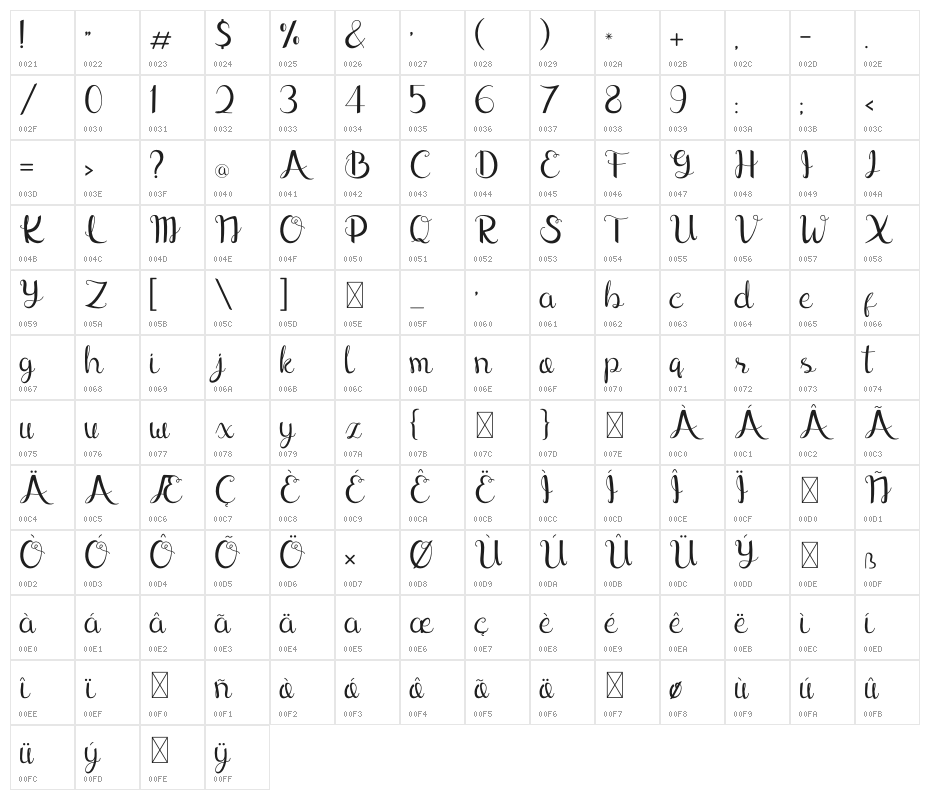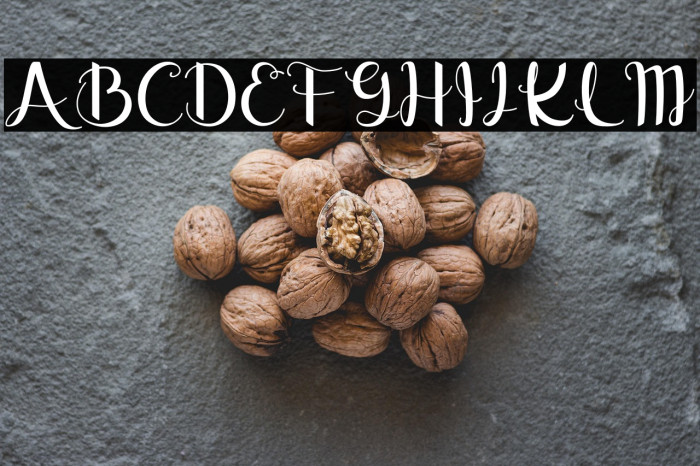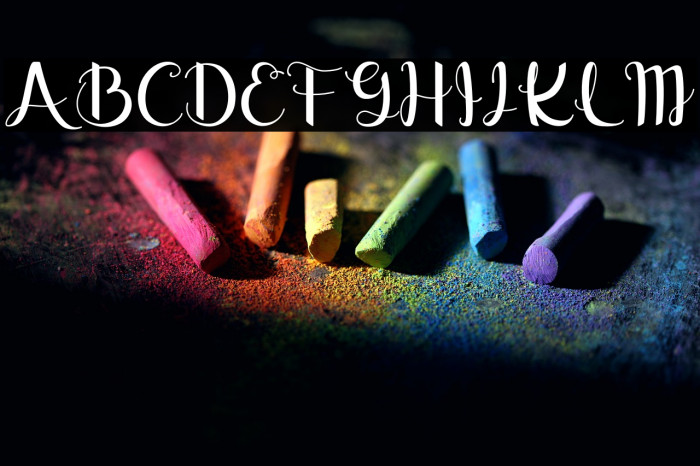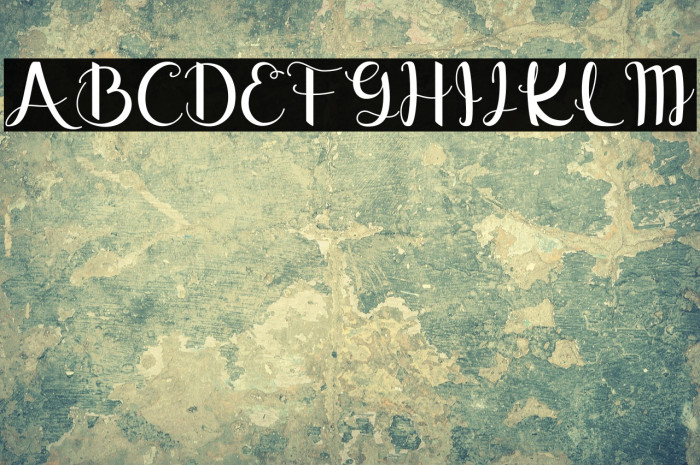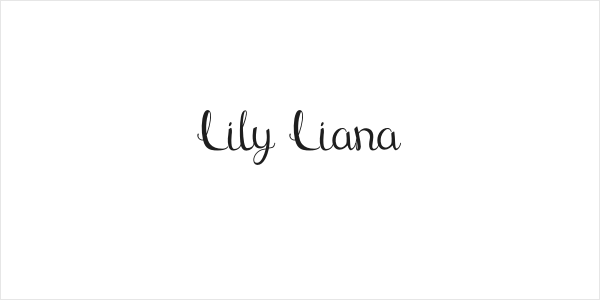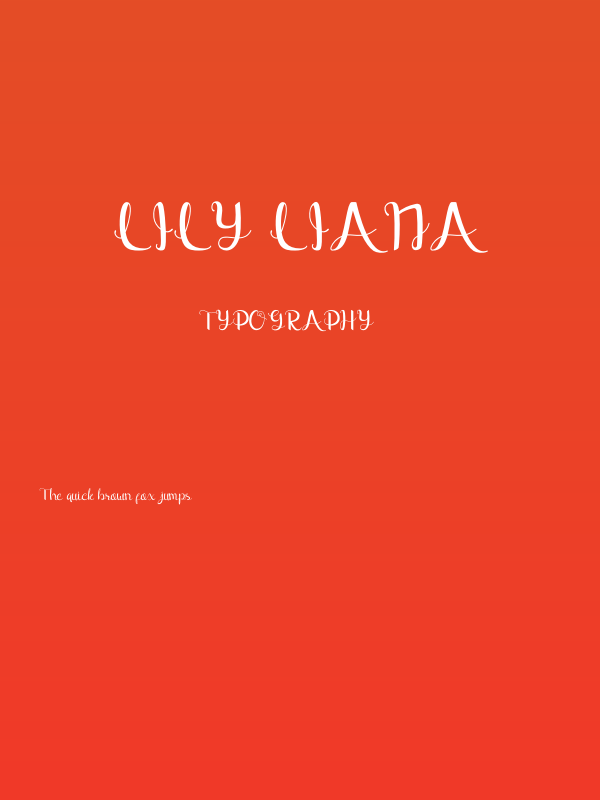
Lily Liana Font
Lily Liana Description
This font features a playful and elegant script style with a modern twist. The uppercase letters are characterized by their flowing, cursive lines that often include unique loops and swirls, giving them a whimsical appearance. The lowercase letters maintain a similar style, with smooth, rounded forms and a consistent stroke width that adds to the font's readability. The numerals are designed with a clean and straightforward approach, complementing the overall aesthetic. Special characters are thoughtfully crafted, maintaining the font's distinctive flair. This font is ideal for projects that require a touch of elegance and creativity.